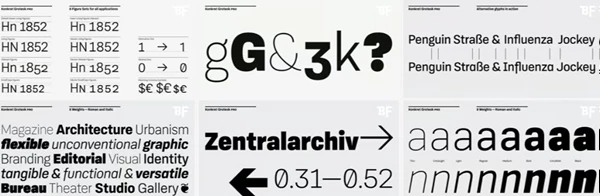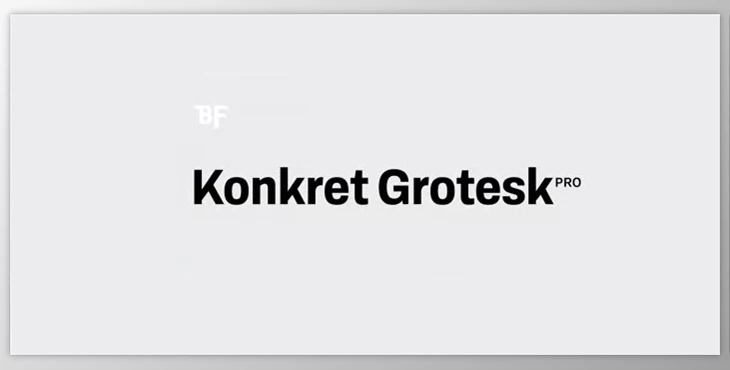
BF Konkret Grotesk Pro by Guido Schneider is a contemporary grotesque typeface that takes the charm of retro grotesque type and combines it with a modern sense of style, an appealing mix of class and (graphic) design edge. It is a highly versatile font that accommodates up to 220 Latin languages. Furthermore, all 16 family fonts contain over 1500 glyphs, including small caps, seven-figure sets, fractions, extensive ligatures, currency signs, and more. The 11 styled sets allow customization of the typeface for specific uses without altering its aesthetics (for instance, a slanted italic can be transformed into a true italic).
The typeface comprises eight weights, allowing extensive use from small to large point type, making it ideal for magazines and books as well as posters and commercial advertising. BF Konkret Grotesek Pro is a practical upgrade of BF Konkret Grotesk, designed to refine and perfect what came before for maximum effectiveness in both limited and unlimited visual contexts. This Pro typeface comes ready to resolve complex typographic ventures for print and screen with ease.